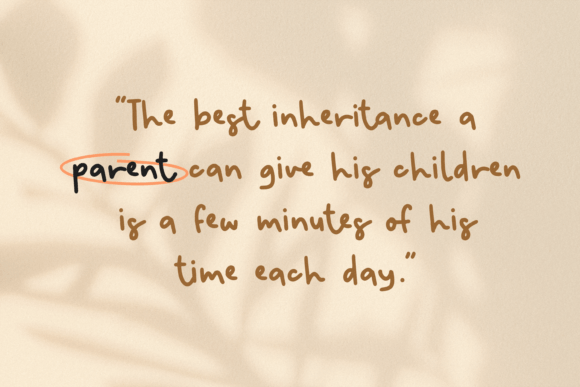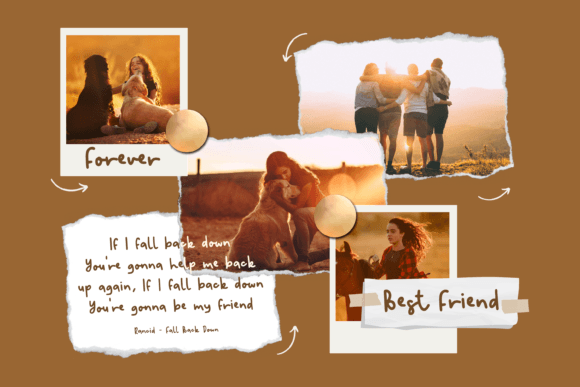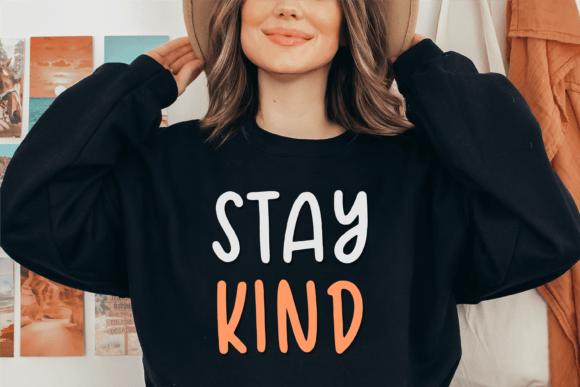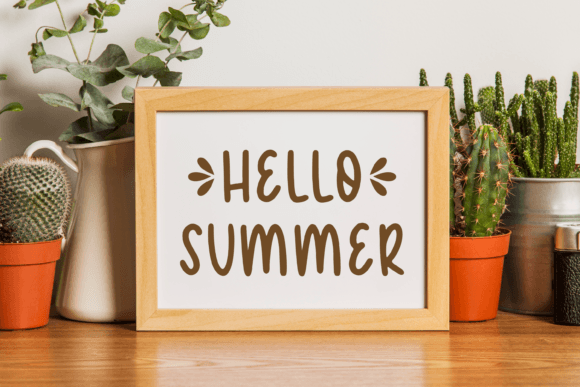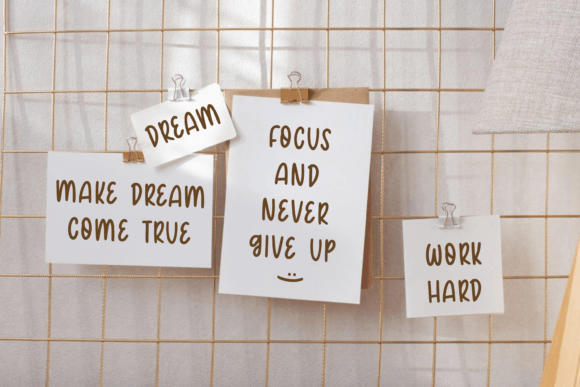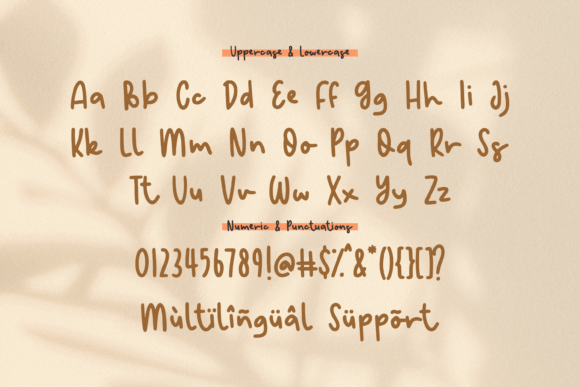
Coffe Latime Font: The Perfect Handwritten Font for Your Creative Projects
Are you a designer or crafter looking for a unique and adorable font to elevate your creative projects? Look no further than Coffe Latime, a cute handwritten font that’s perfect for a variety of applications. In this article, we’ll explore the features and benefits of Coffe Latime, and show you how to use it to take your designs to the next level.
What is Coffe Latime?
Coffe Latime is a charming handwritten font that’s designed to add a touch of personality to your designs. With its playful and cursive style, this font is perfect for creating eye-catching headlines, titles, and text that will capture the attention of your audience. Whether you’re working on a product packaging project, branding campaign, magazine layout, or social media graphic, Coffe Latime is the perfect choice.
Key Features of Coffe Latime
- Cute and Playful Style: Coffe Latime has a unique and adorable style that’s sure to make your designs stand out.
- Handwritten Font: This font has a personal and human touch, making it perfect for creating a connection with your audience.
- Versatile: Coffe Latime can be used for a wide range of projects, from product packaging to social media graphics.
- Easily Readable: Despite its playful style, Coffe Latime is easy to read, making it perfect for body text and headlines.
Use Cases for Coffe Latime
Coffe Latime is a versatile font that can be used for a variety of projects, including:
- Product Packaging: Add a personal touch to your product packaging with Coffe Latime’s playful and cursive style.
- Branding Projects: Use Coffe Latime to create a unique and memorable brand identity that will set you apart from the competition.
- Magazines and Newspapers: Add a touch of personality to your magazine or newspaper layouts with Coffe Latime’s elegant and cursive style.
- Social Media Graphics: Create eye-catching social media graphics with Coffe Latime’s playful and attention-grabbing style.
- Weddings and Events: Use Coffe Latime to create beautiful and personalized wedding invitations, programs, and other event materials.
Tips for Using Coffe Latime
Here are some tips for getting the most out of Coffe Latime:
- Use it as a Headline Font: Coffe Latime is perfect for creating eye-catching headlines and titles.
- Pair it with Other Fonts: Experiment with pairing Coffe Latime with other fonts to create a unique and visually appealing typography.
- Use it for Body Text: While Coffe Latime is perfect for headlines, it can also be used for body text to create a more personal and human touch.
Coffe Latime is a unique and adorable handwritten font that’s perfect for designers and crafters looking to add a touch of personality to their creative projects. With its playful and cursive style, this font is versatile and can be used for a wide range of applications. Whether you’re working on a product packaging project, branding campaign, or social media graphic, Coffe Latime is the perfect choice. So why wait? Download Coffe Latime today and take your designs to the next level!